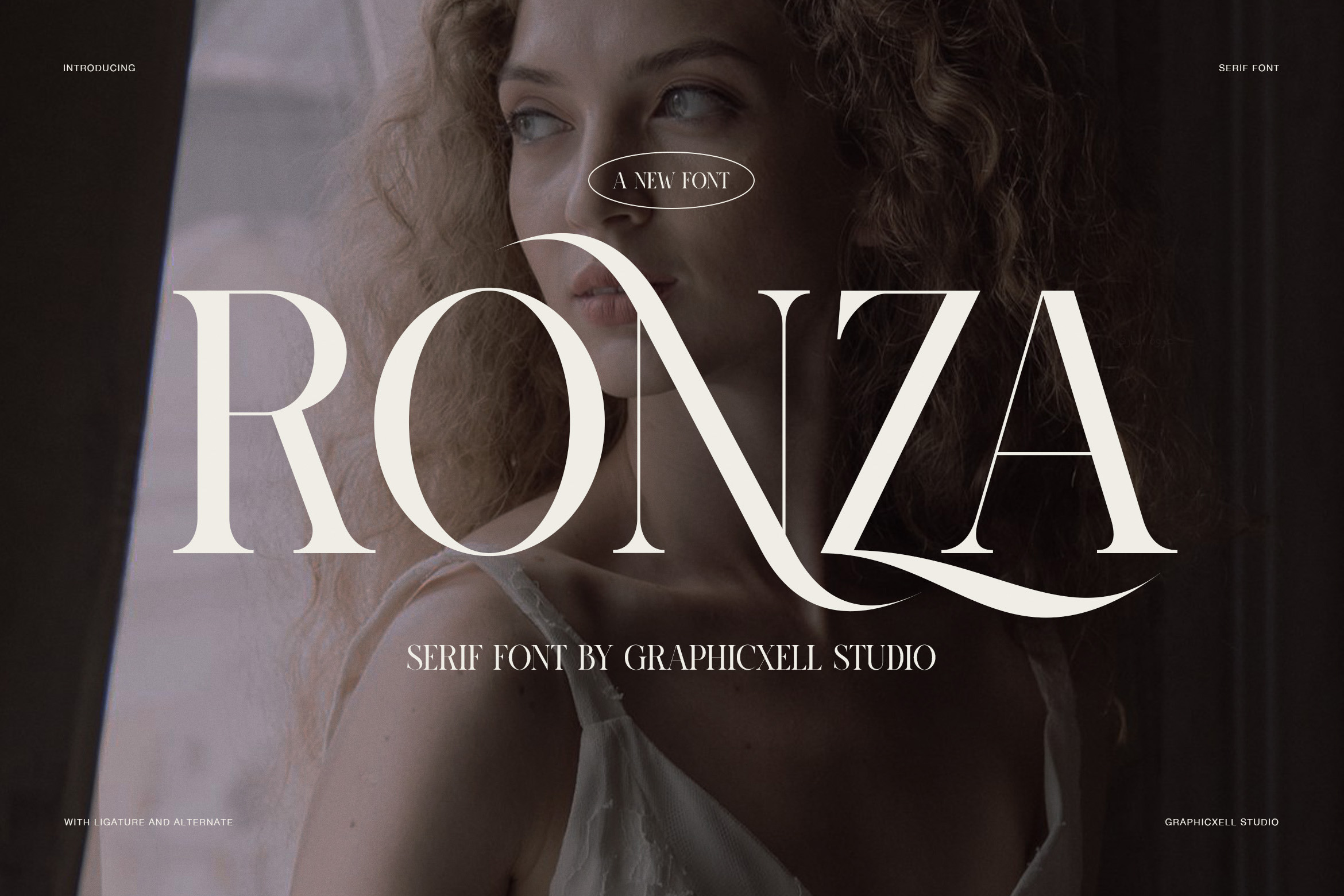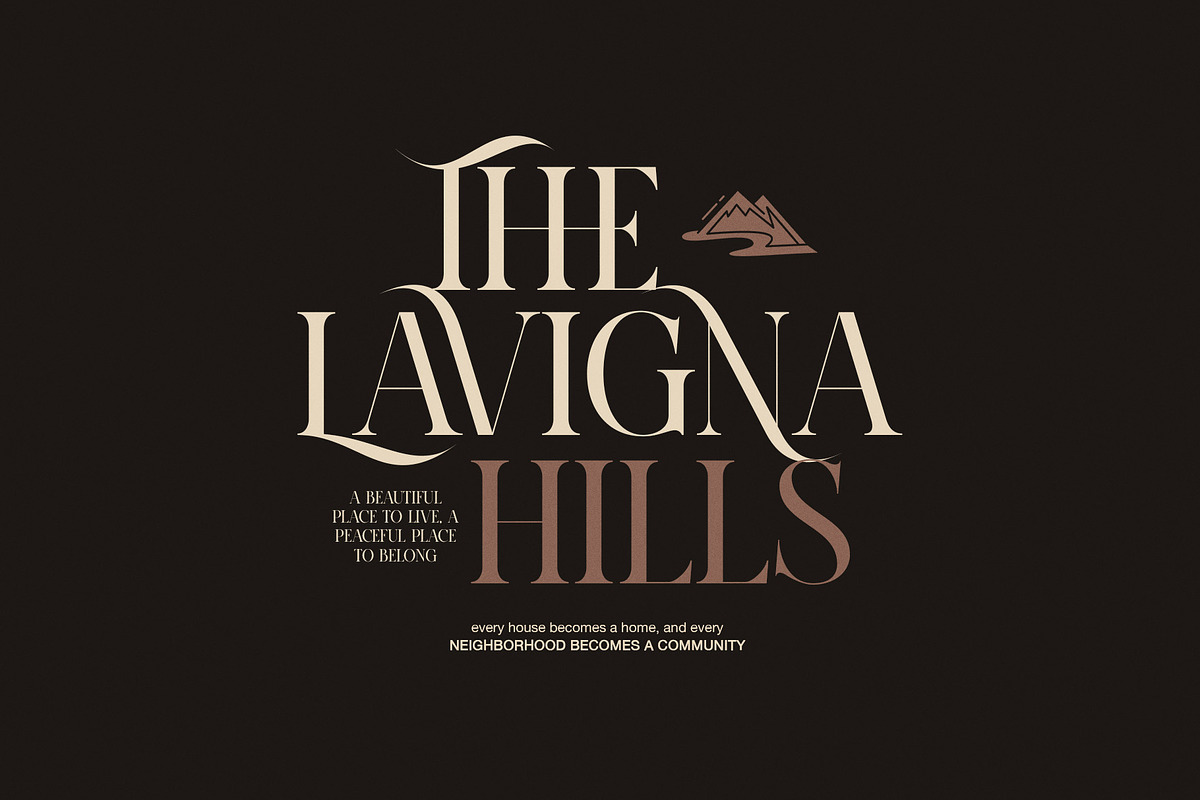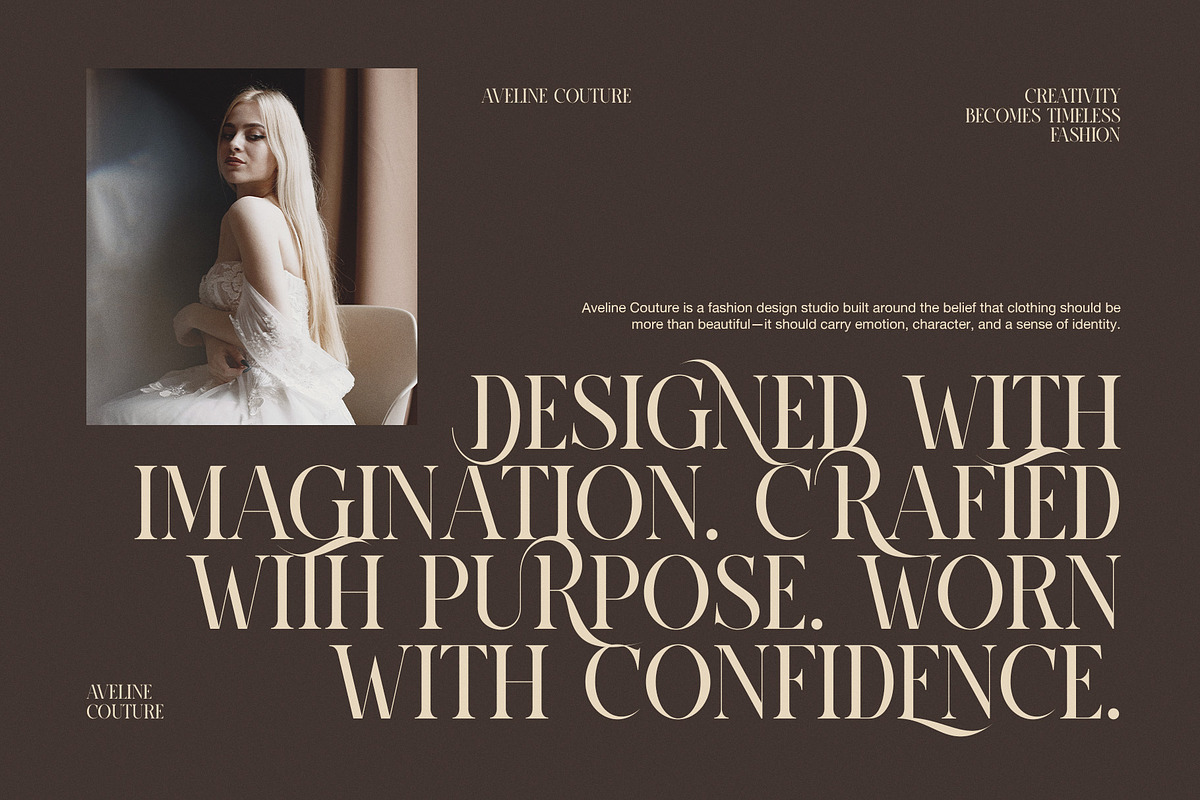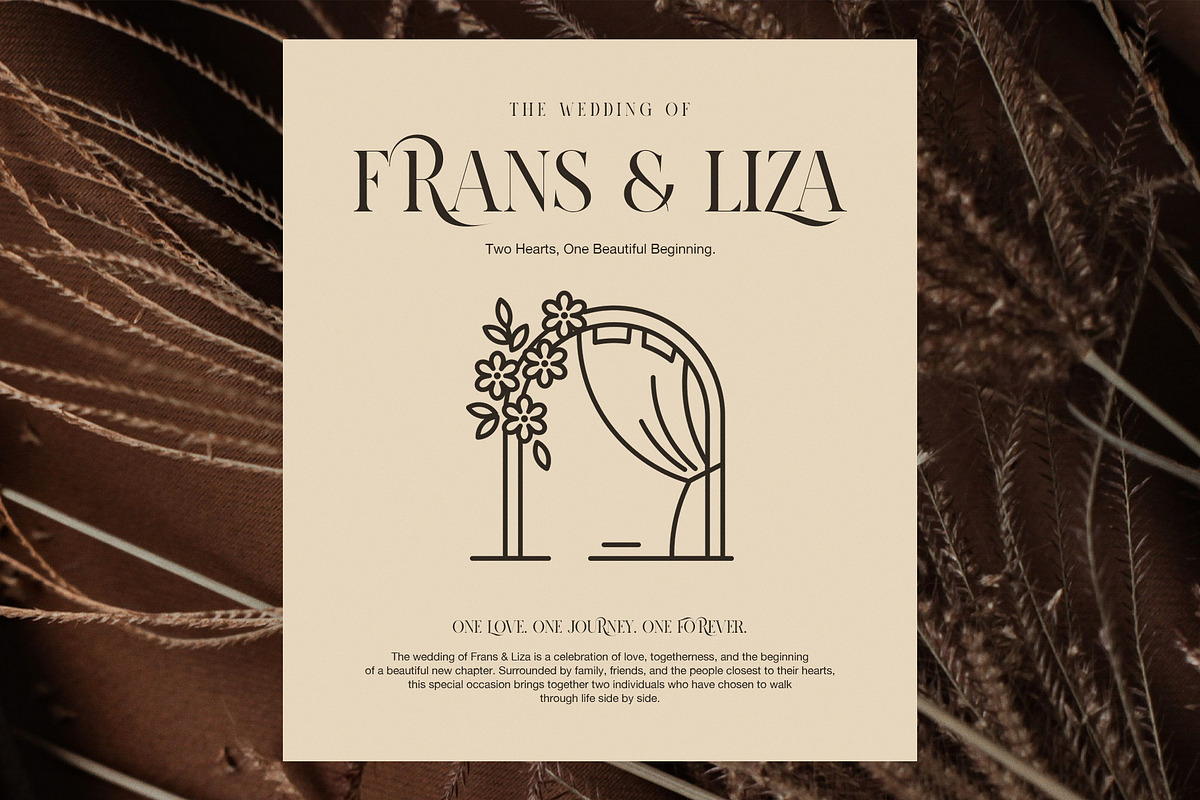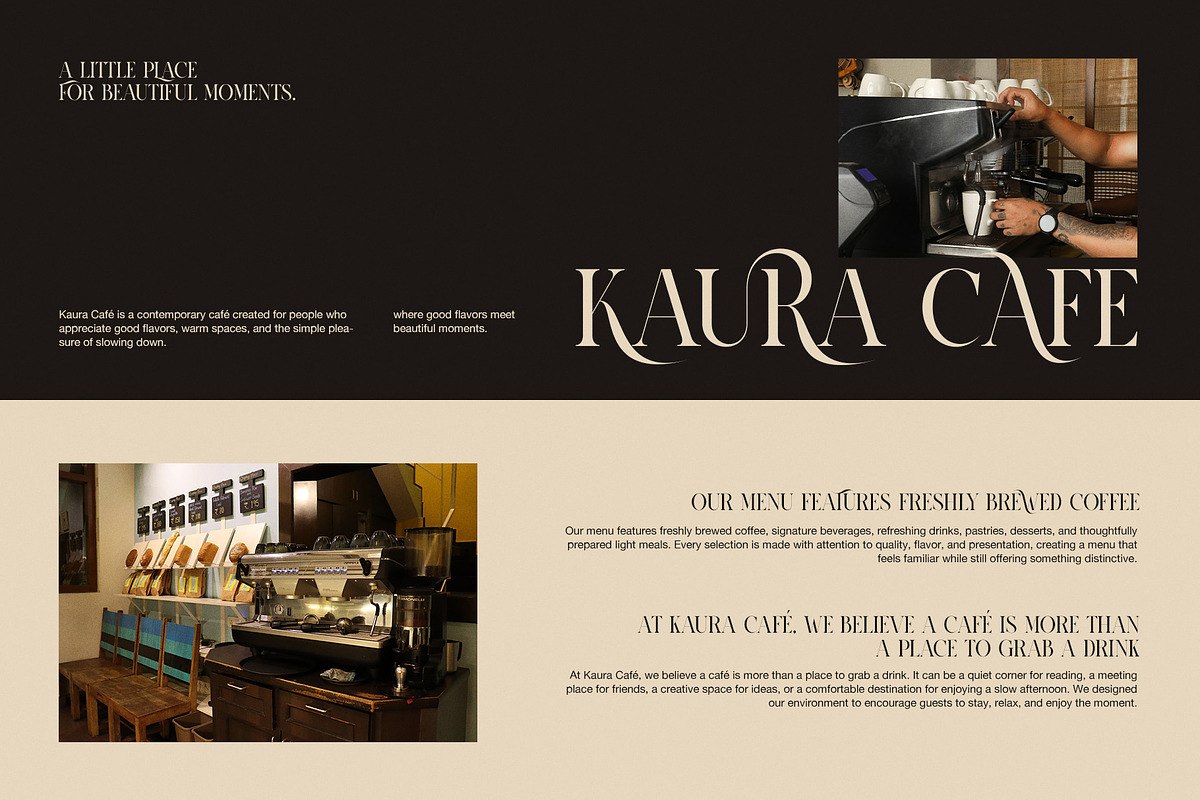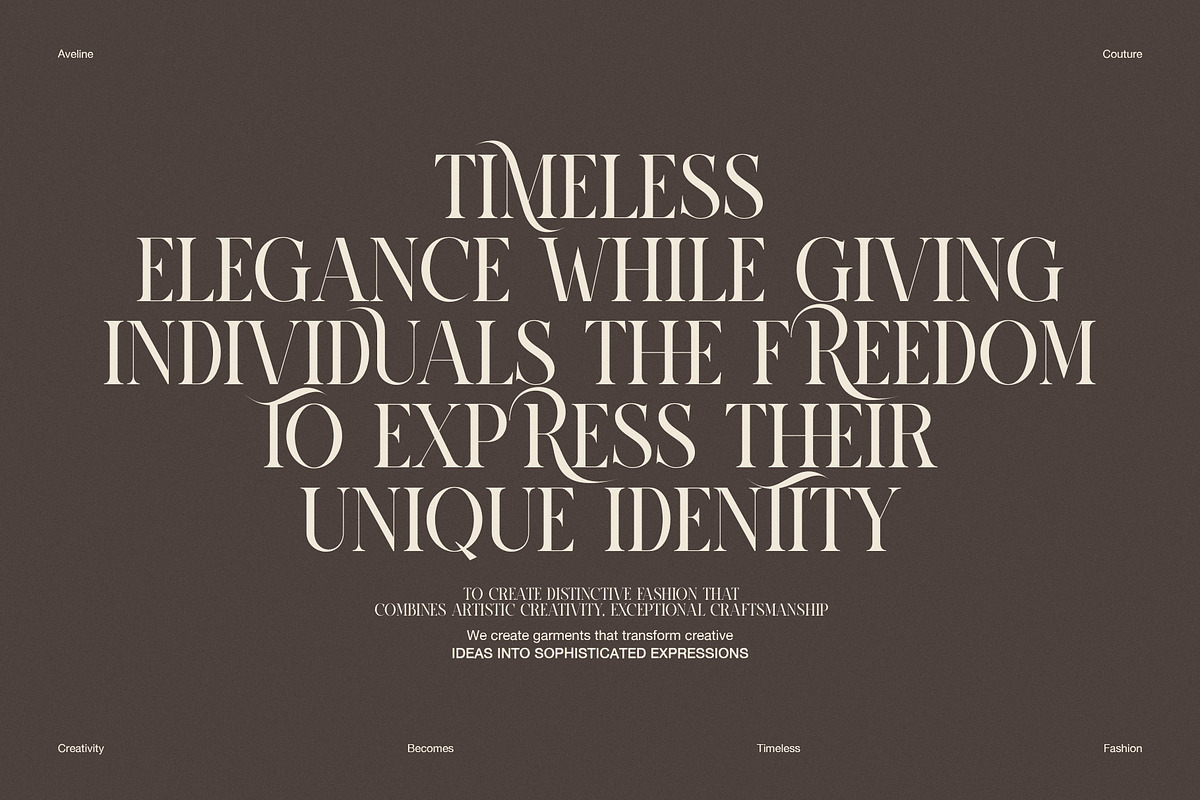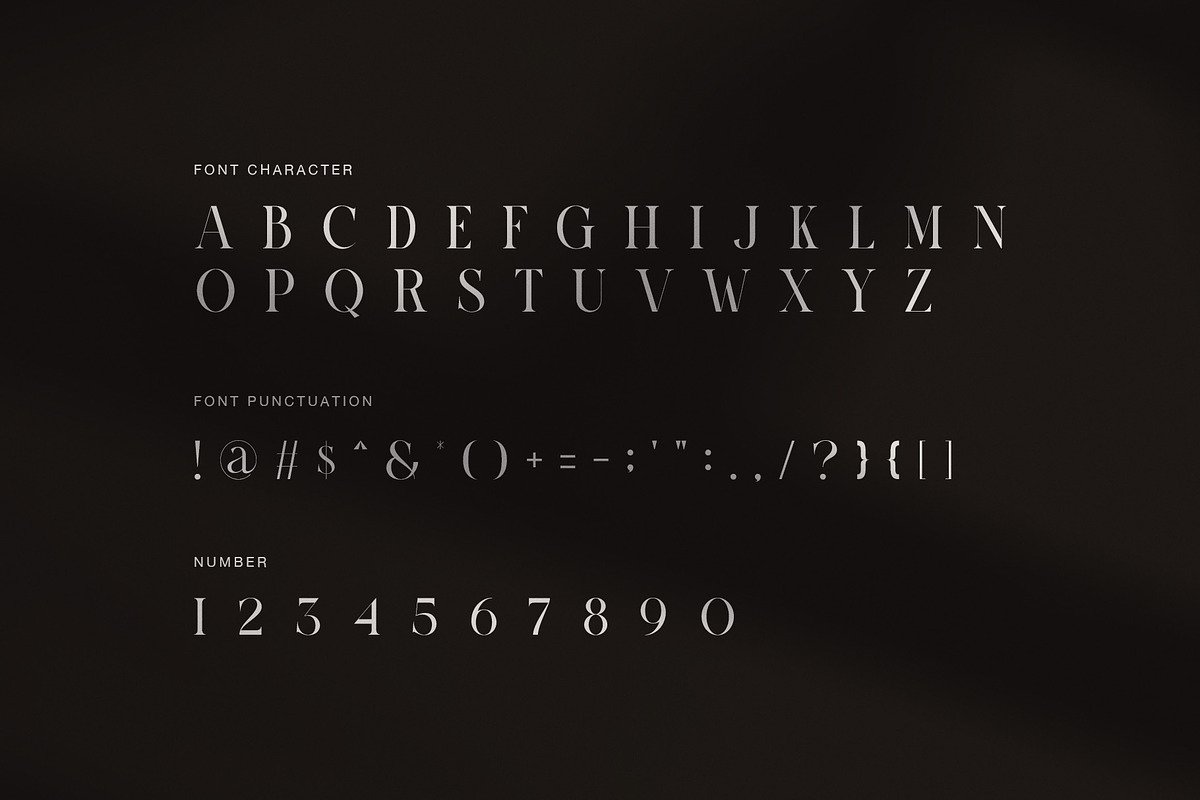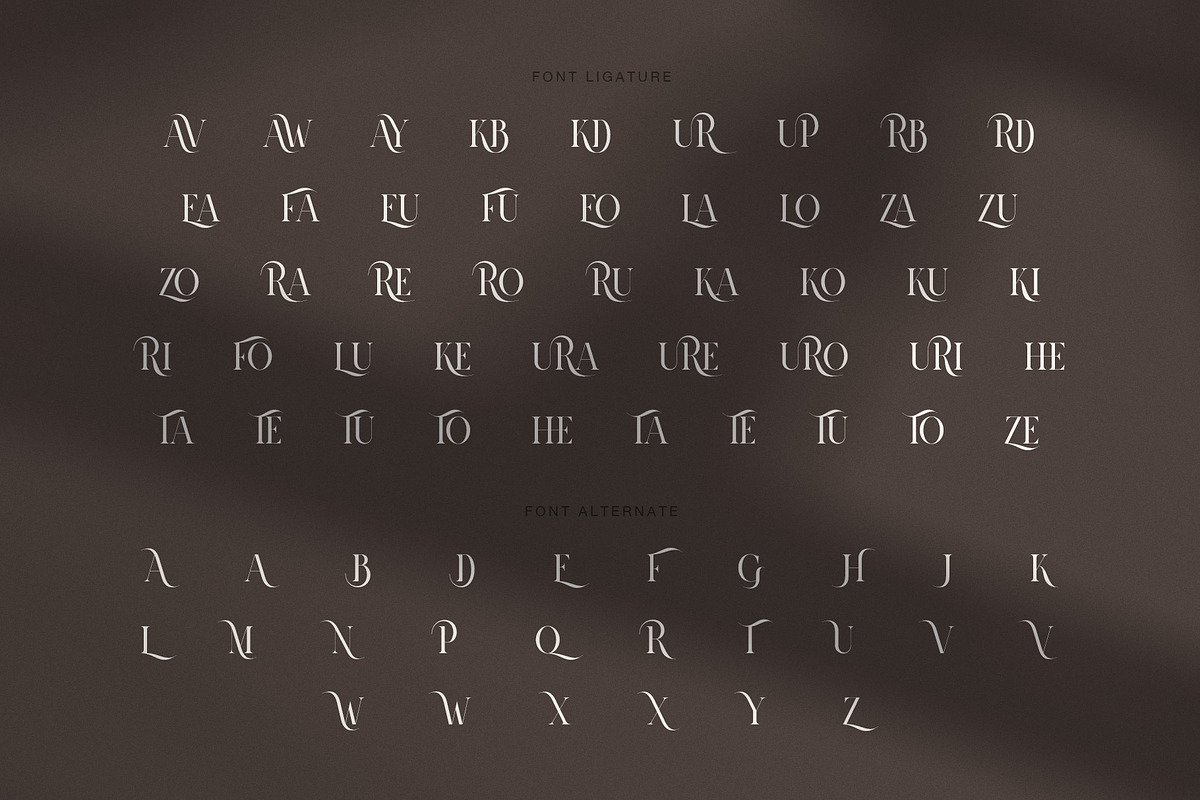
Ronza Elegant Serif Font
Ronza is an elegant high contrast serif font made for designs that need a refined, stylish, and memorable look. Its tall letterforms, fine hairlines, strong strokes, and graceful curves create a strong fashion feel. At the same time, its flowing details add a soft sense of movement.
Because of this balance, Ronza works especially well for luxury branding, fashion logos, beauty products, wedding stationery, magazine covers, and modern editorial layouts. Moreover, its clean shape makes headlines easy to read. As a result, its decorative details can help short words stand out.
Ronza includes stylish ligatures and alternate letters that give designers more ways to shape their text. Therefore, you can create a simple look for brand work or add a special touch when the design calls for it. For example, the swash details are useful for names, logos, titles, and display text. In addition, the alternate characters help build a custom feel with ease.
The font is a strong choice for:
Fashion brands and clothing labels
Luxury logos and visual identities
Beauty and skincare packaging
Wedding invitations and event cards
Magazine covers and editorial design
Photography and portfolios
Boutique, hotel, and lifestyle branding
Posters, social media graphics, and ads
Also, Ronza performs well in both dark and light layouts. As a result, it can bring a polished look to print pieces and digital designs. Its high contrast gives headlines strong presence, while its elegant curves keep the overall style graceful rather than heavy.
Furthermore, the mix of classic serif forms and modern swashes gives Ronza a fresh fashion feel. It feels premium, feminine, artistic, and confident. However, it remains flexible enough for many creative projects. Likewise, the fine strokes and tall forms make it especially striking when used at large sizes.
Choose Ronza when you want typography that feels elegant without becoming plain. Whether you are creating a luxury logo, fashion campaign, wedding invitation, or beauty brand, this serif font adds character, style, and a clear visual identity. Finally, its ligatures and alternate letters let you add a distinct touch while keeping the design clean and easy to use.